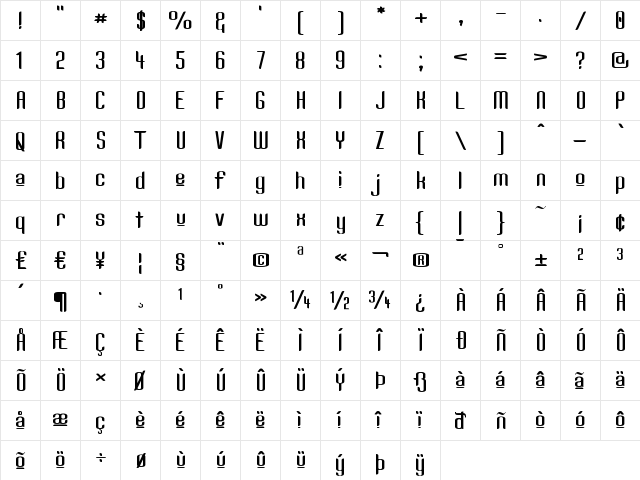
Kandide Upper Wide Regular
| Designer | Graham Meade & Apostrophe |
Design Context for Kandide Upper Wide Typeface
Kandide Upper Wide takes a measured approach to typography — its balanced proportions and neutral character make it a reliable workhorse for both digital and print work.